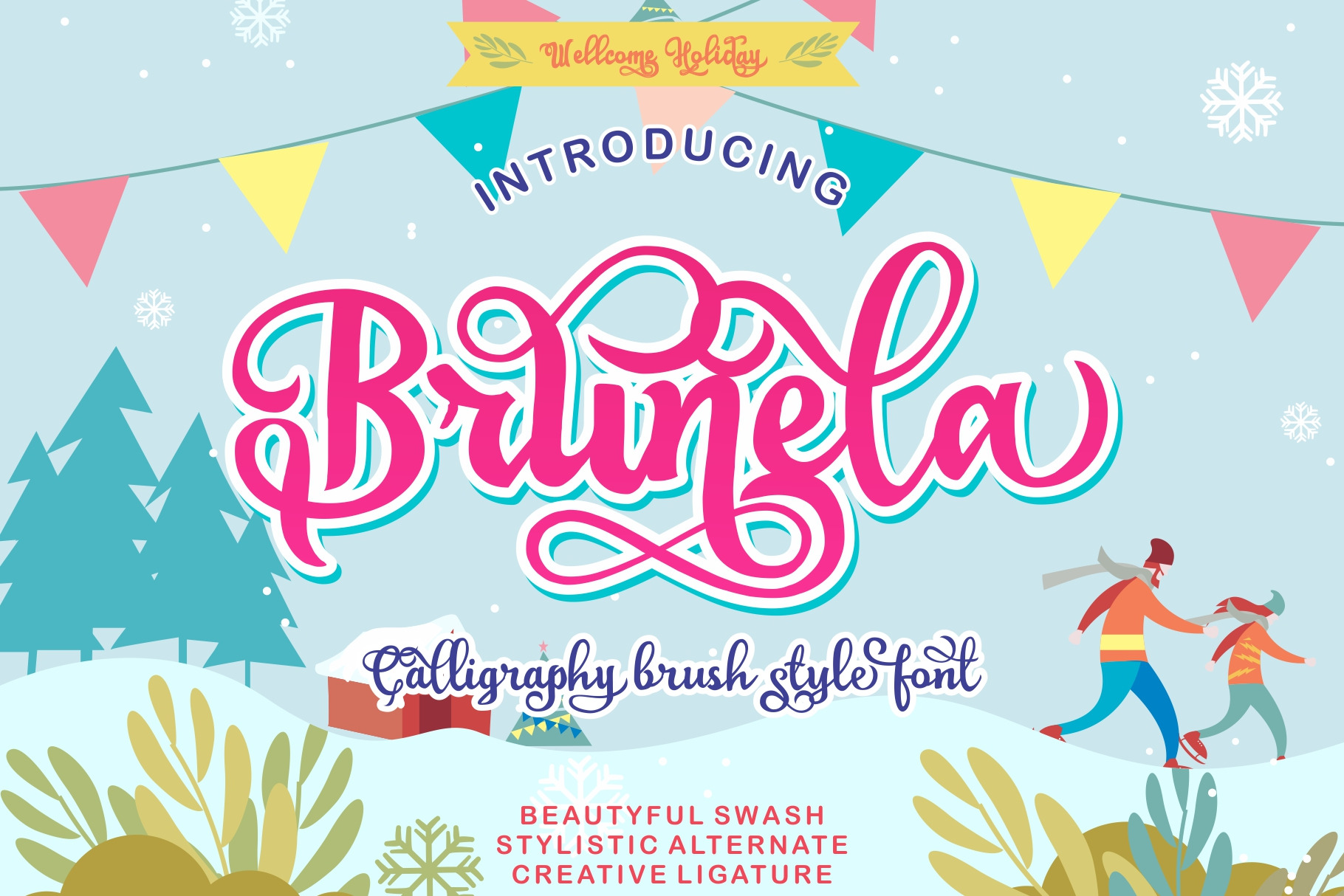
Brunela - Handrawn Calligraphy font
BRUNELA is a brush font with calligraphy style, so that we can write beautifully to beautify your typography design, with the concept of handwriting, have a soft, happy, cheerful and playful feel, so that it fits perfectly applied in happy, beautiful and cute themed designs. design:Z Greeting card